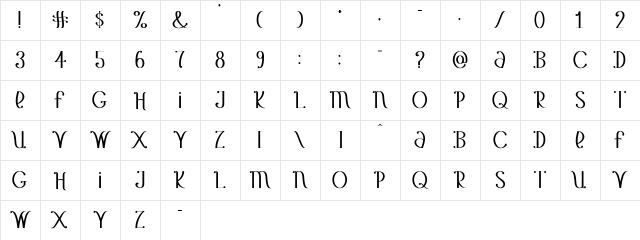
Complete Chiquita Banana Regular glyph index. Displaying only characters natively supported by Chiquita Banana Regular font.
Chiquita Banana is a composed and adaptable typeface that performs quietly and consistently across a wide range of design contexts.